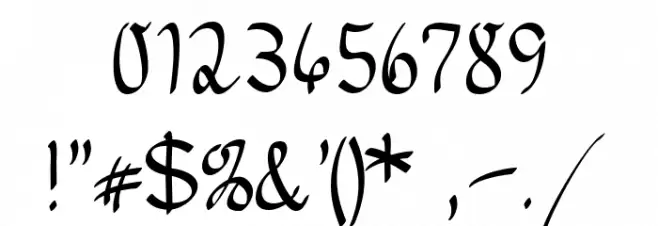
Morado Nib Font
Morado Nib Description
This font features a dynamic and fluid script style, characterized by its elegant and flowing strokes. The uppercase letters exhibit a bold presence with distinct curves and loops, while the lowercase letters maintain a consistent rhythm and grace. The numerals are designed with a similar flair, ensuring readability while maintaining the overall aesthetic. Special characters are crafted with attention to detail, complementing the alphabet with style and coherence. This font's design is reminiscent of traditional calligraphy, yet it incorporates modern elements that make it versatile for various applications.
A fluid and elegant script font with a modern calligraphic style from Uncategorized fonts.
- Proposed Projects: Ideal for wedding invitations, greeting cards, branding projects, and elegant packaging designs.
- Use Case: Logos, Invitations, Decorative text